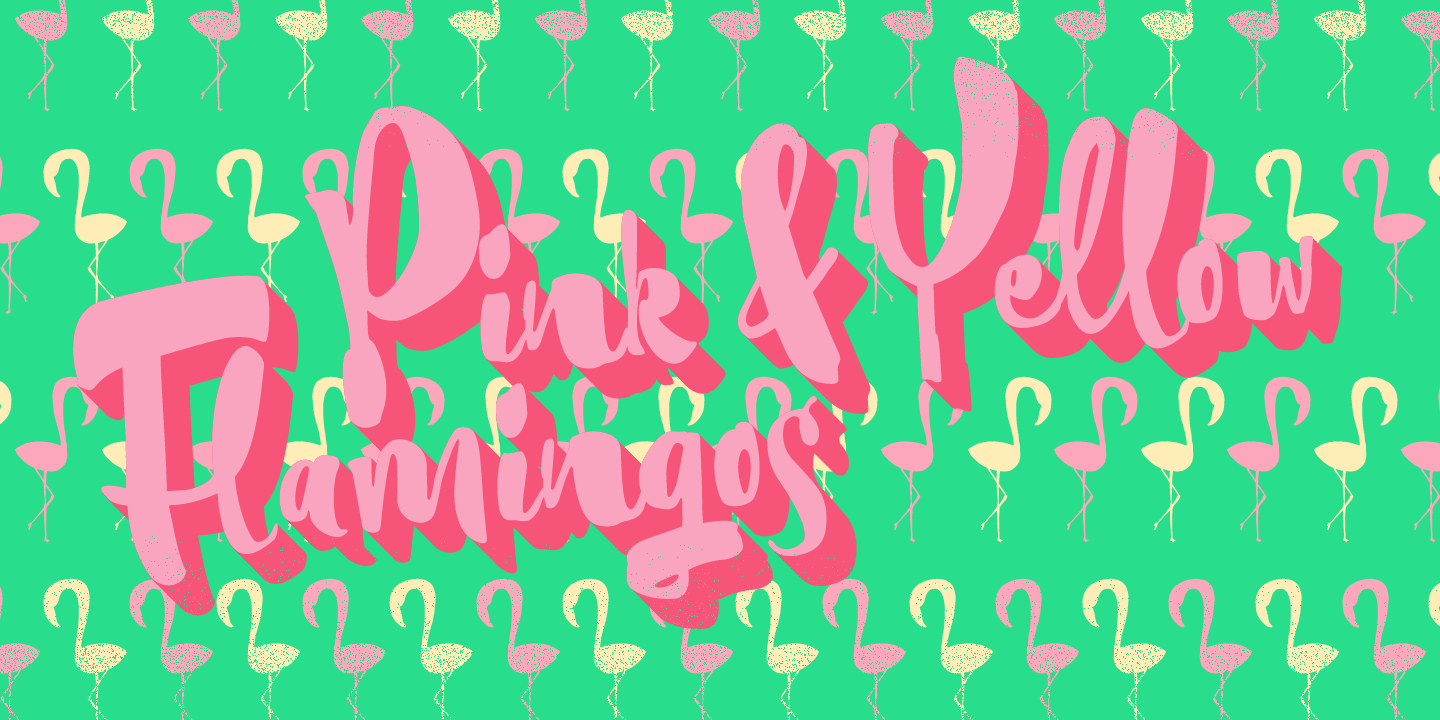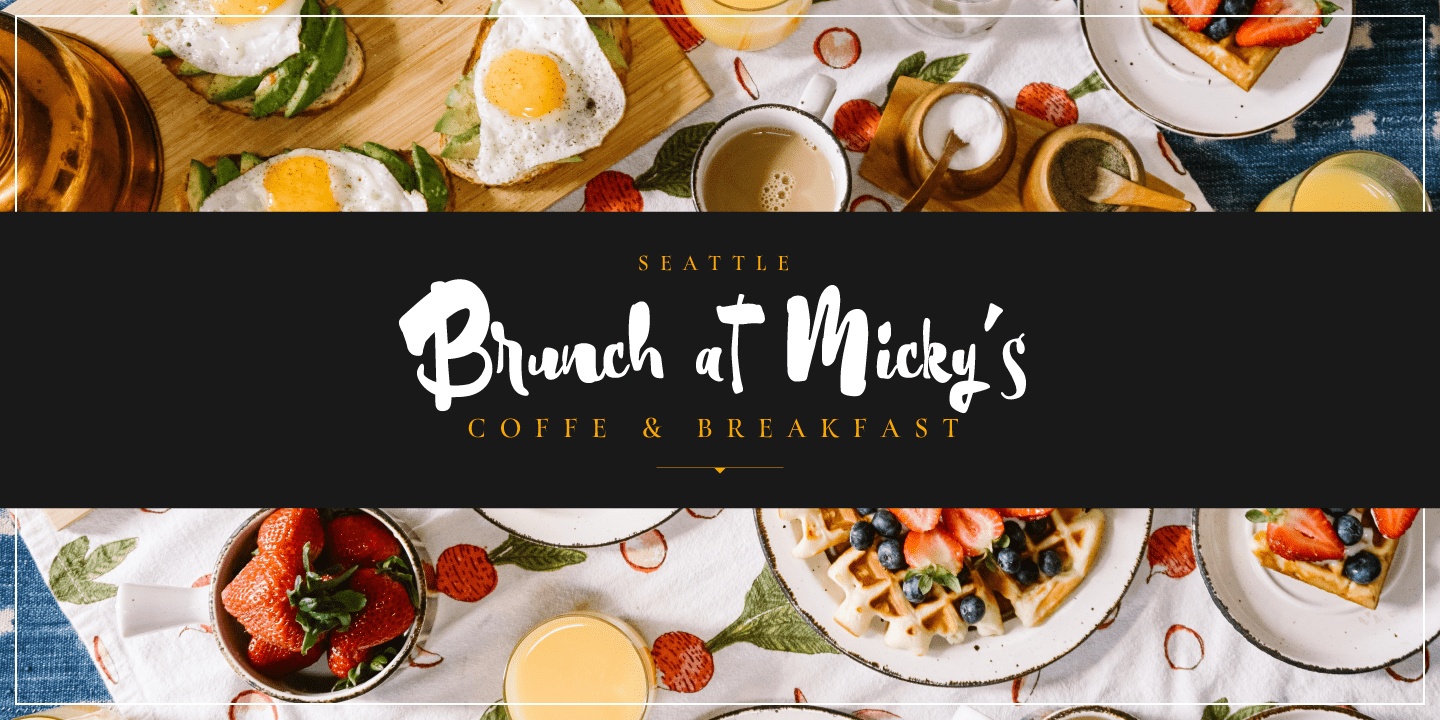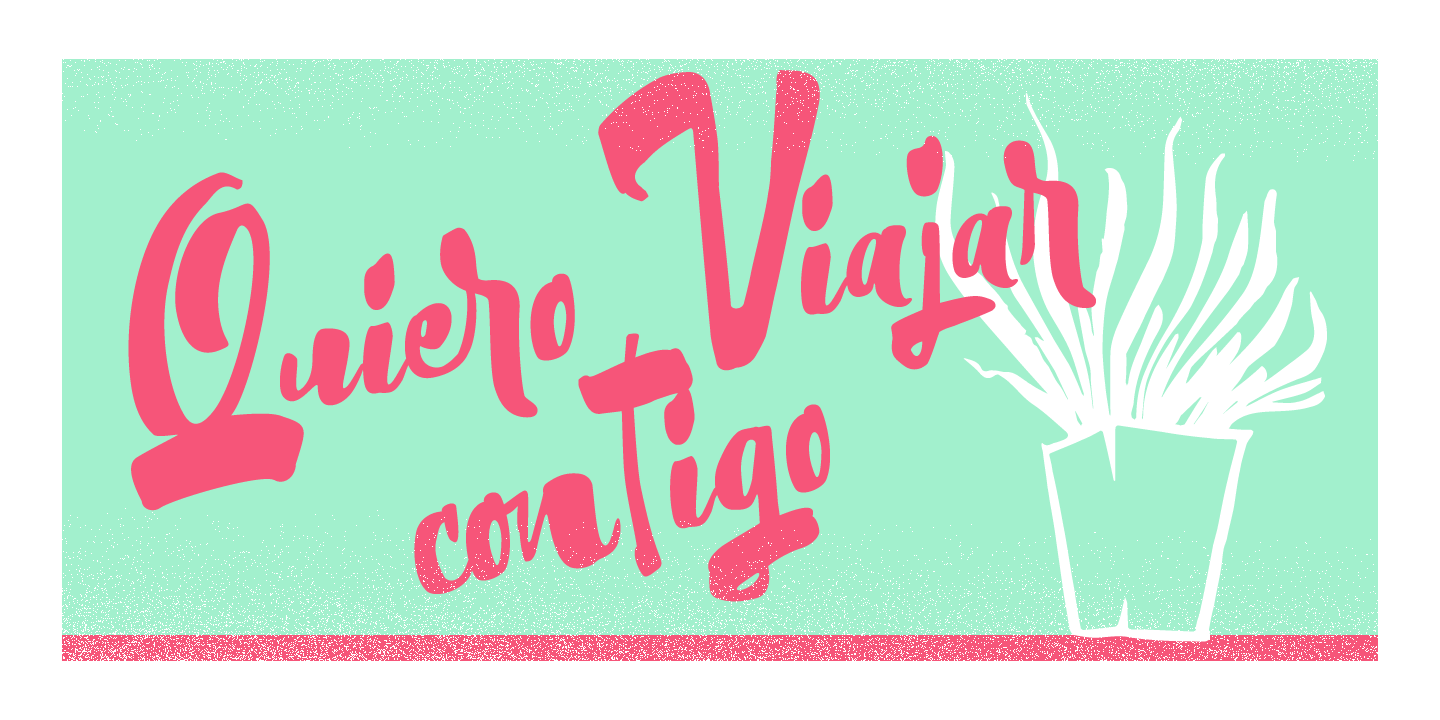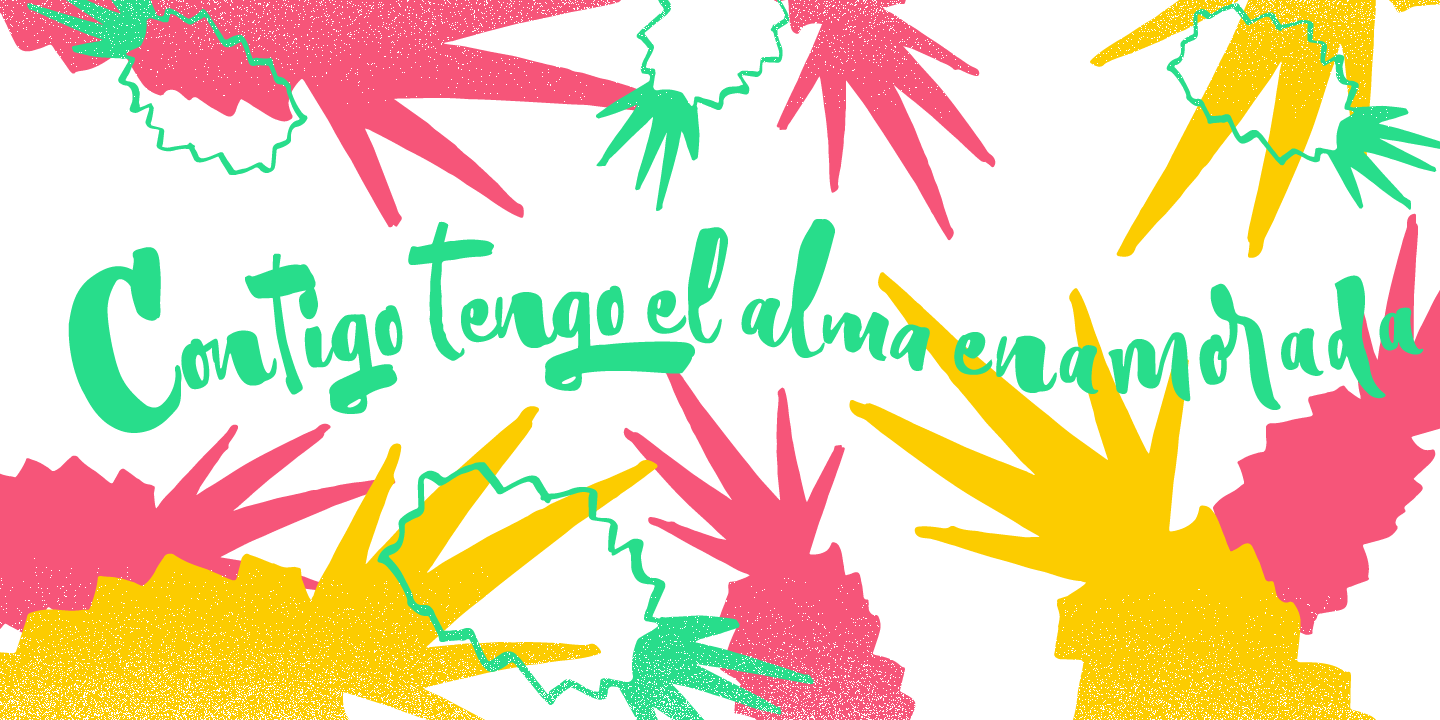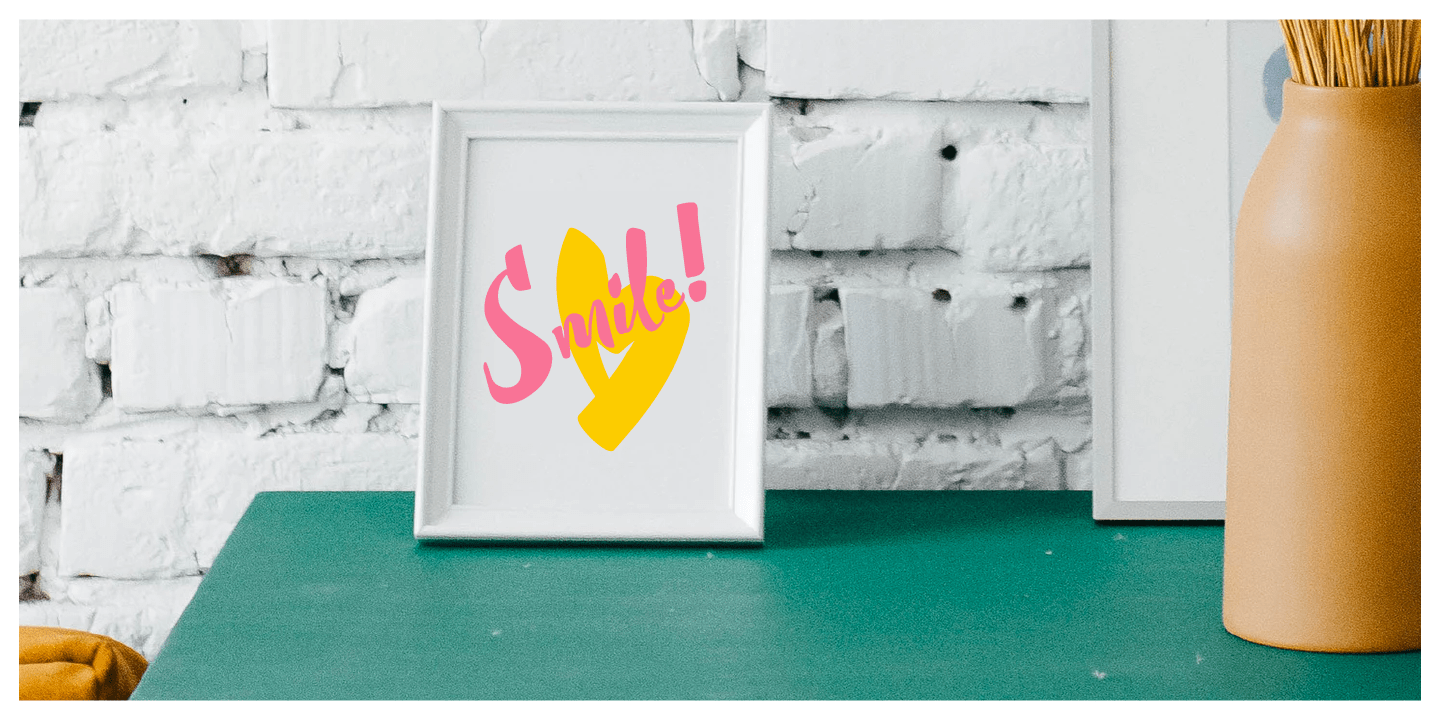
About Contigo
Contigo Is our new brushy script for your summer cards and gifts. This script has a lot of contrast created with a lot of pressure and release of the brush pen. The icon set contains tropical elements like leaves, pink flamingos, pineapple and more.…